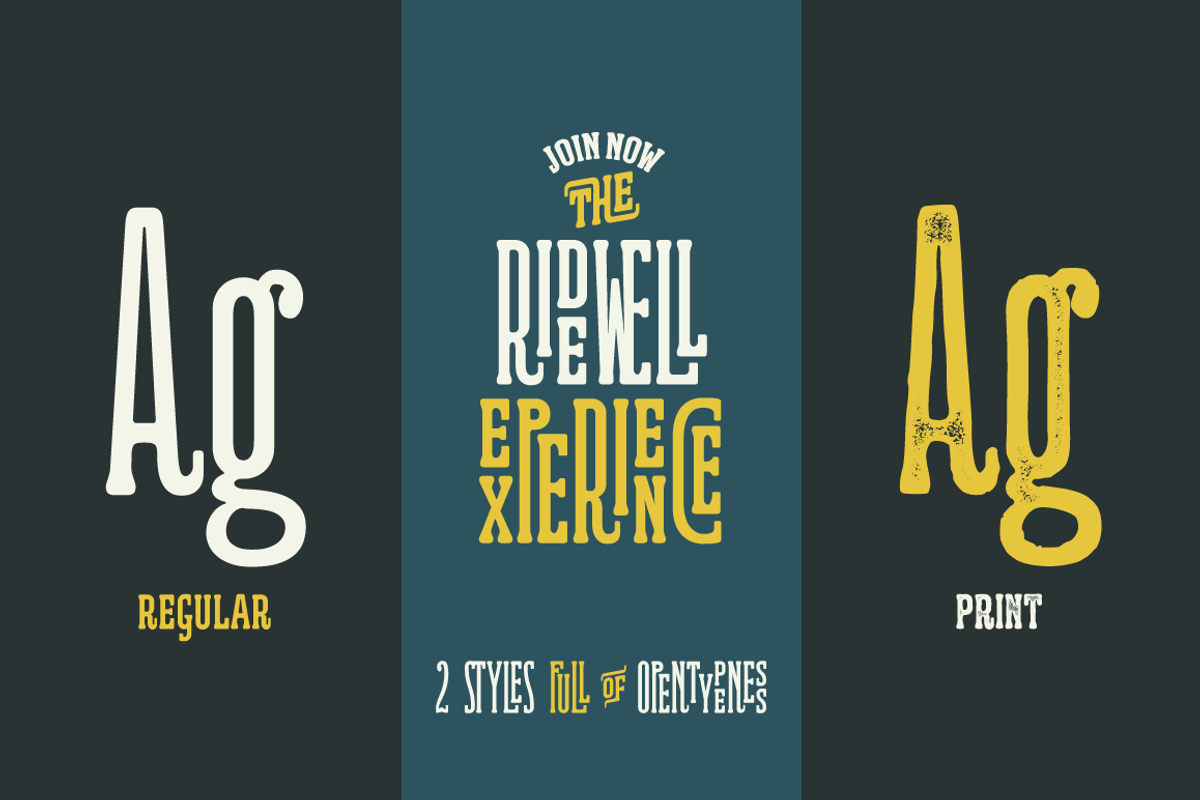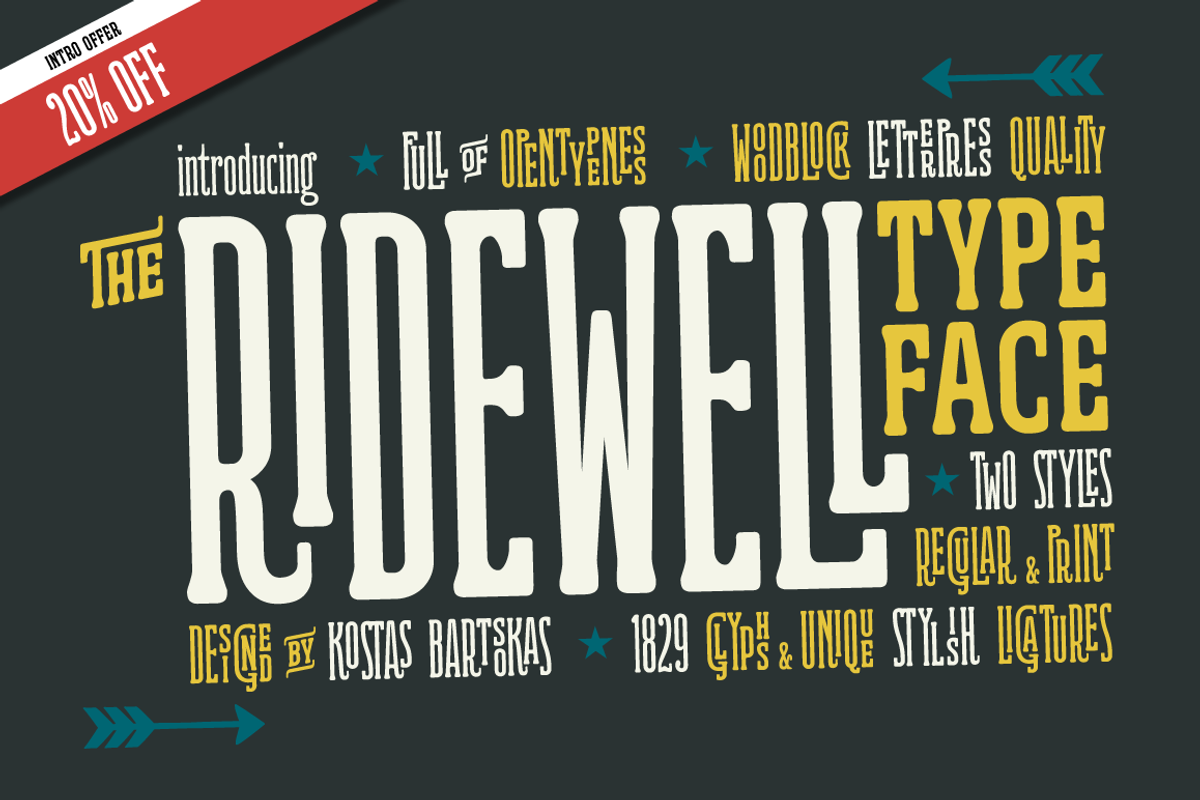
Ridewell Typeface
Ridewell Typeface by Kostas Bartsokas is a font selected for branding, posters, packaging, typography.
- Both styles feature a full uppercase and lowercase set but also a variety of opentype goodies that make Ridewell unique and expand each styl
- With over 1800 glyphs per style you can take full advantage of stylistic alternates (titling alternates in Adobe InDesign), contextual alter
- Ridewell Regular
- Ridewell Print
Why Ridewell Typeface is worth a look
Ridewell Typeface by Kostas Bartsokas fits naturally into Branding, posters, packaging, typography.